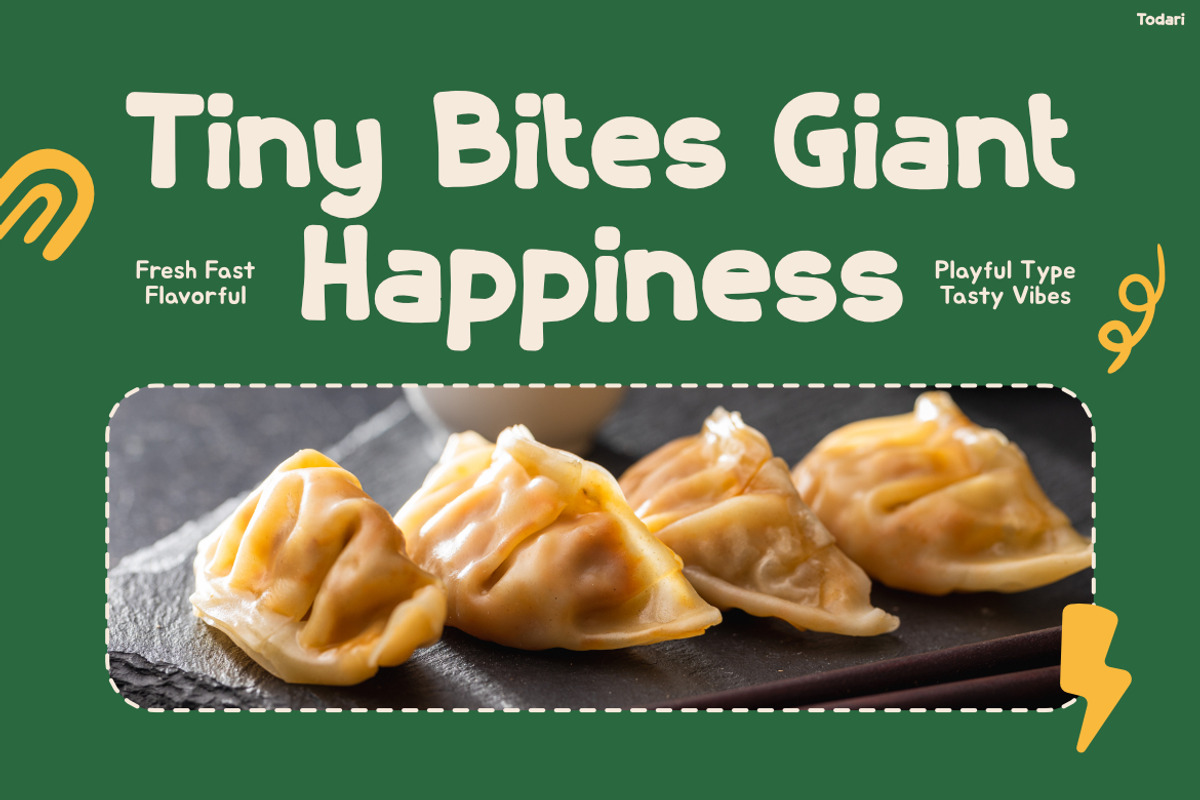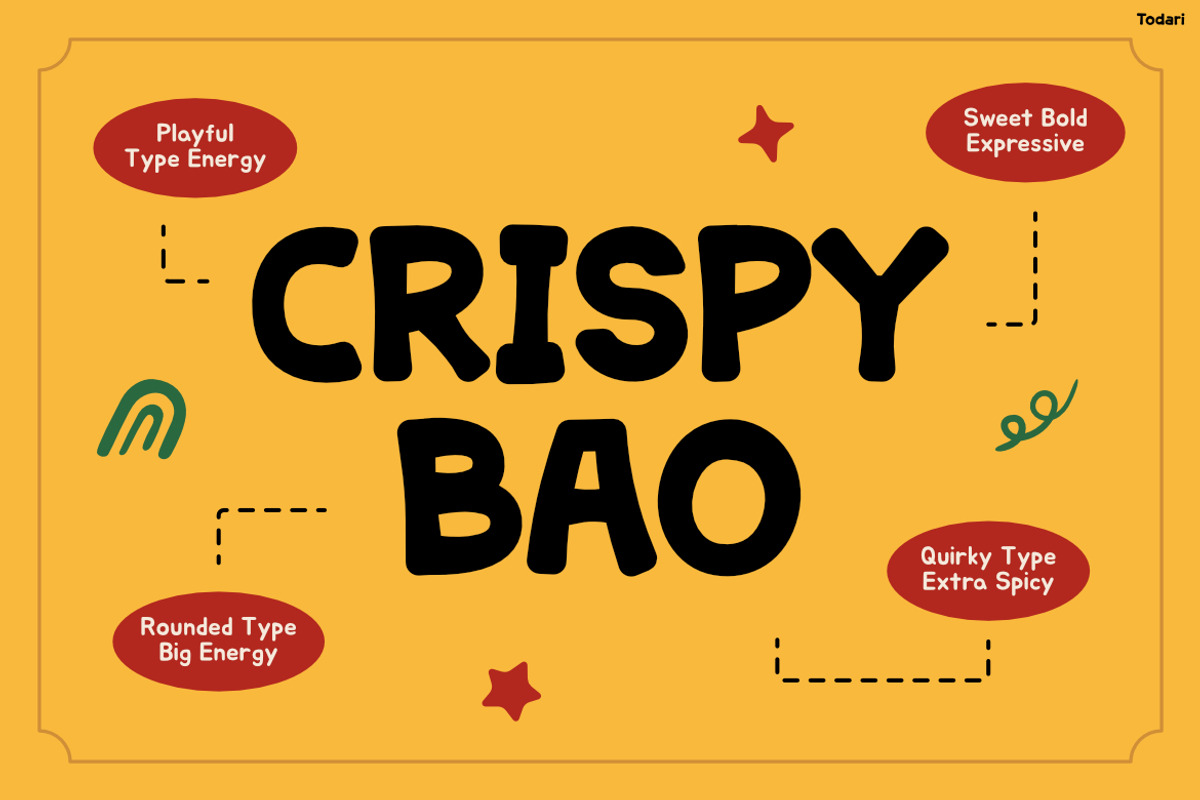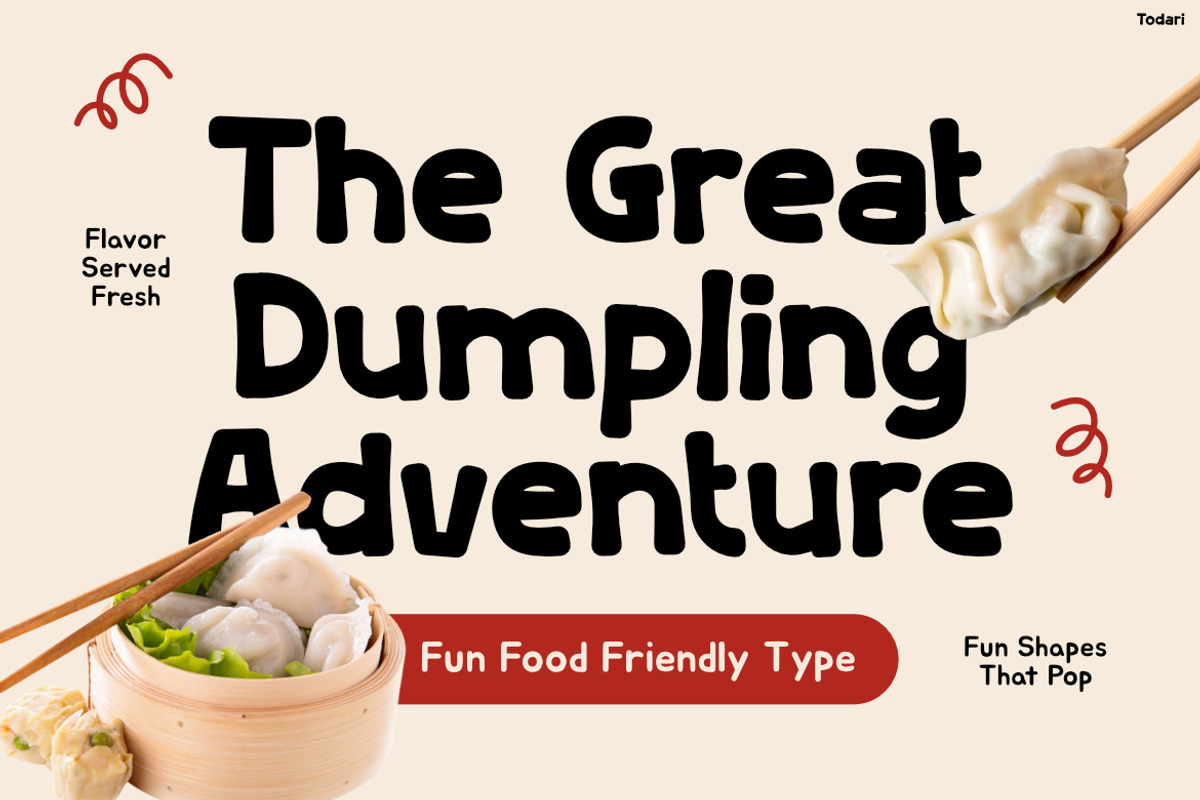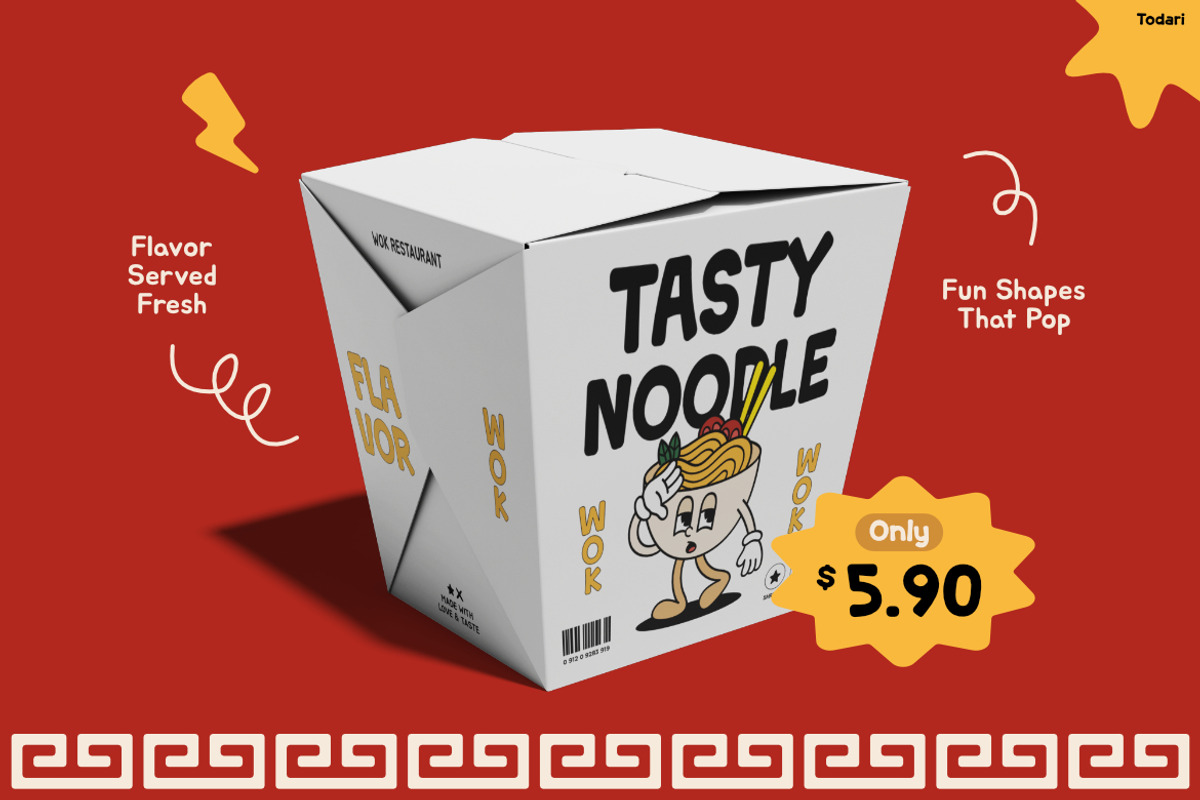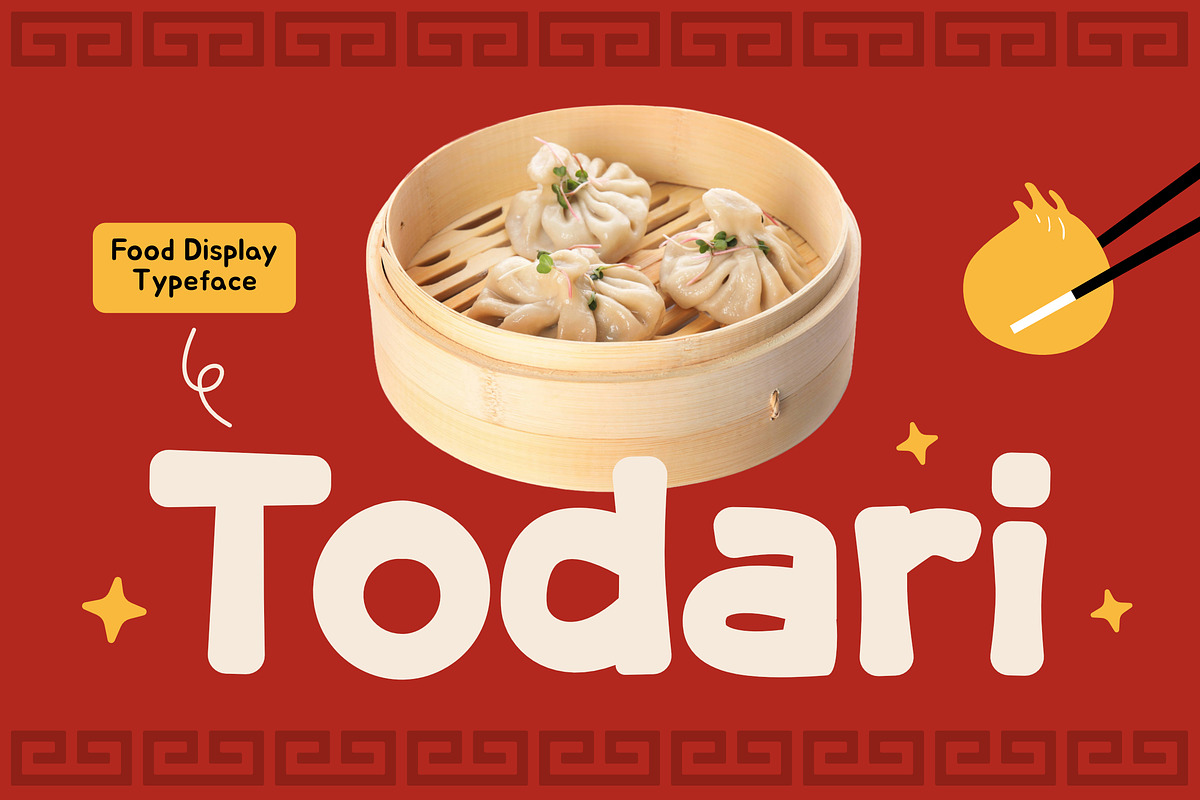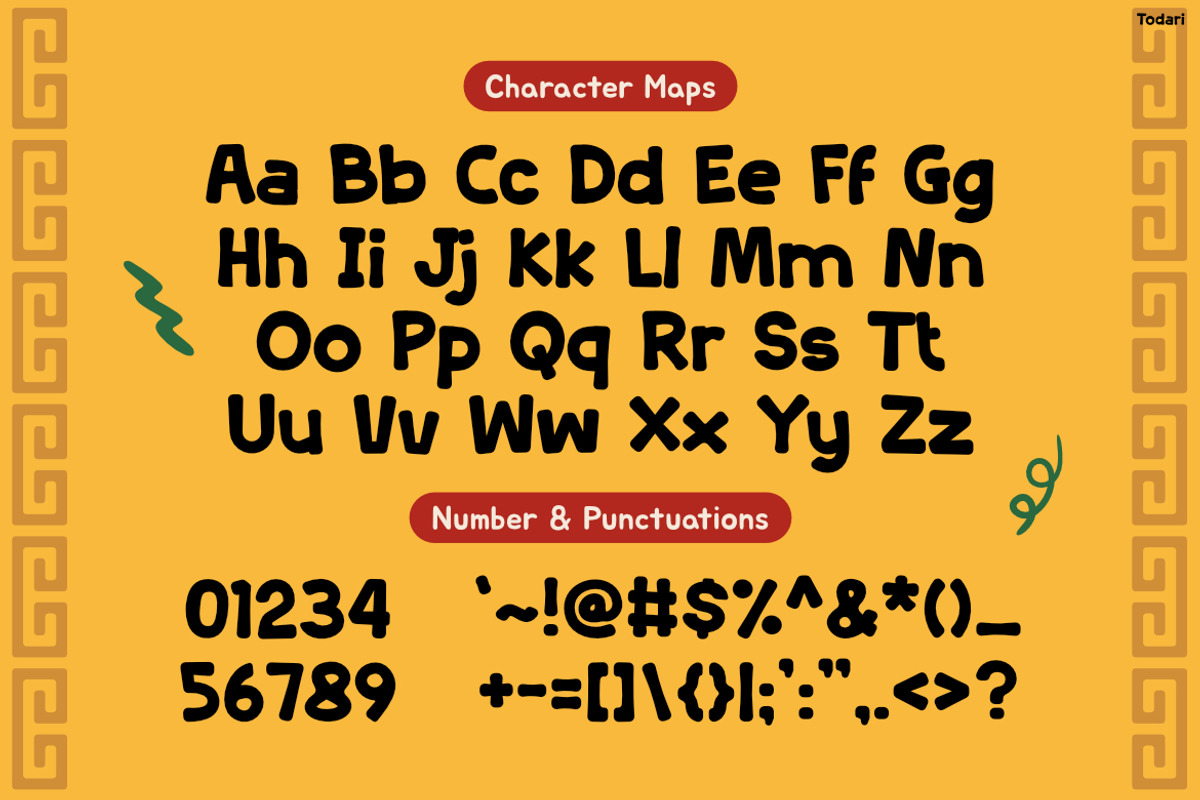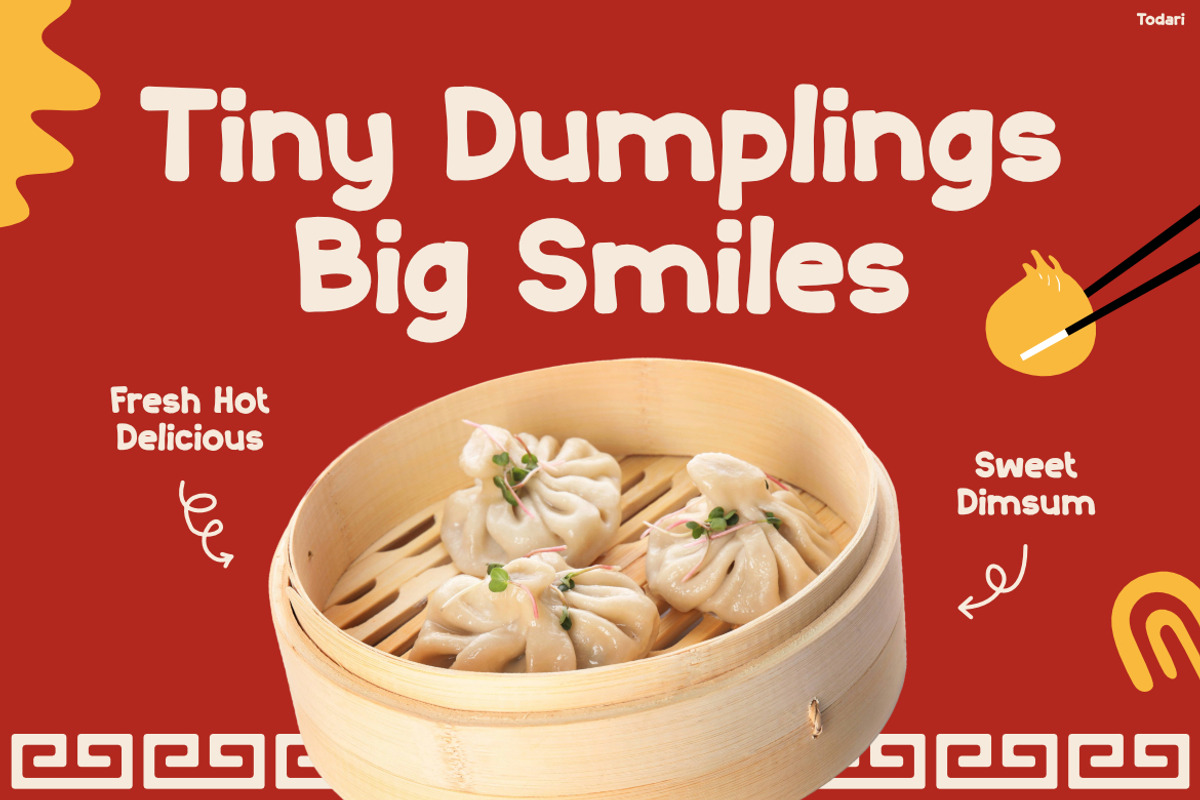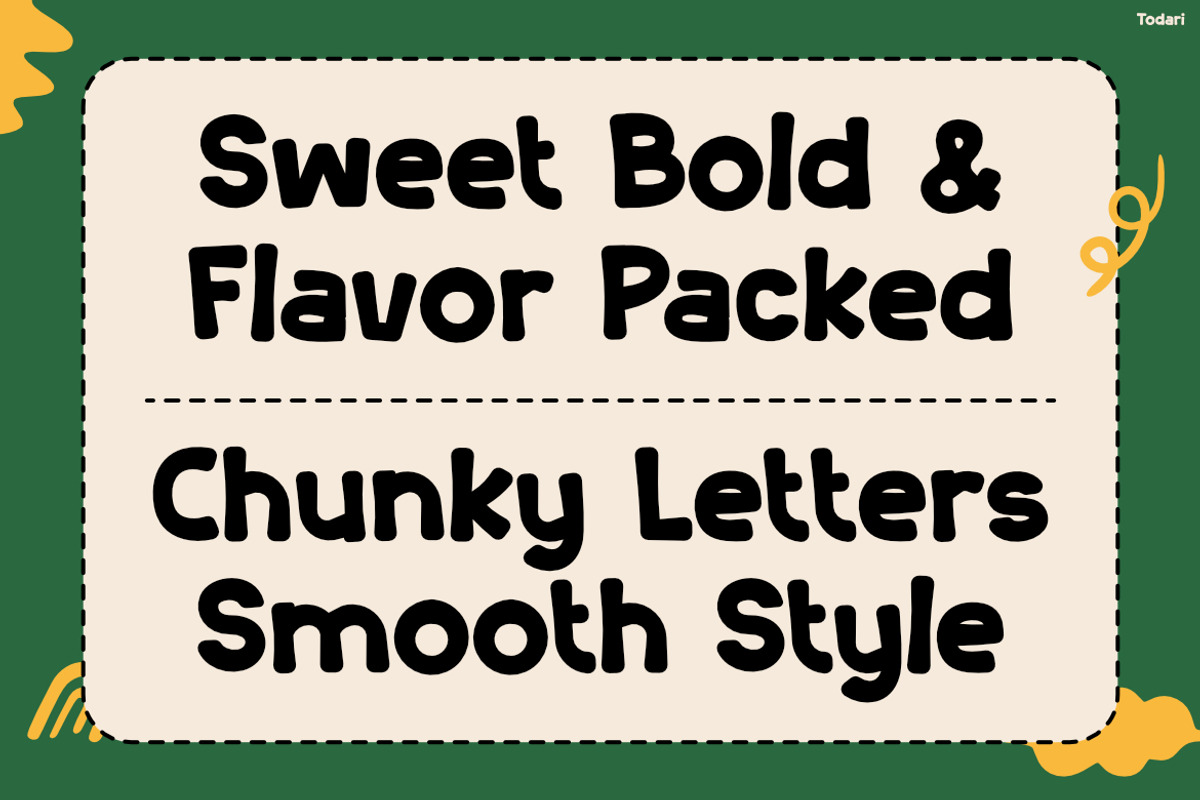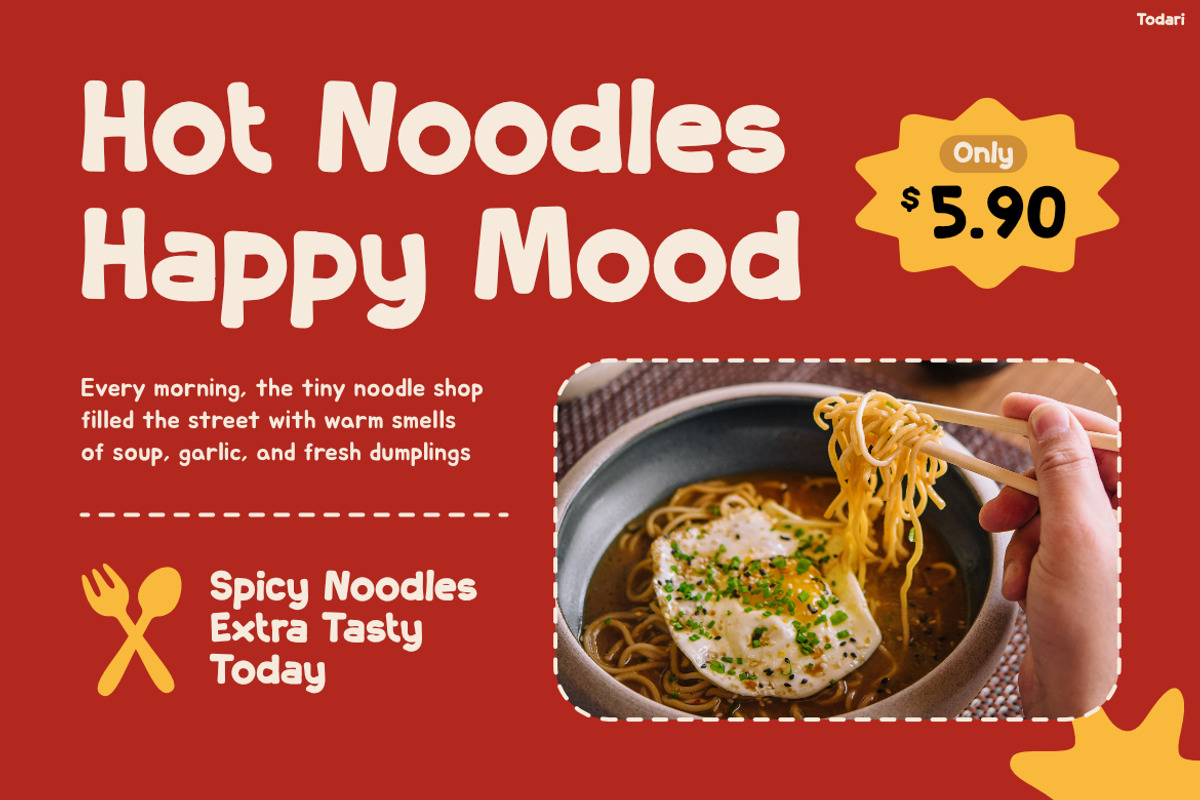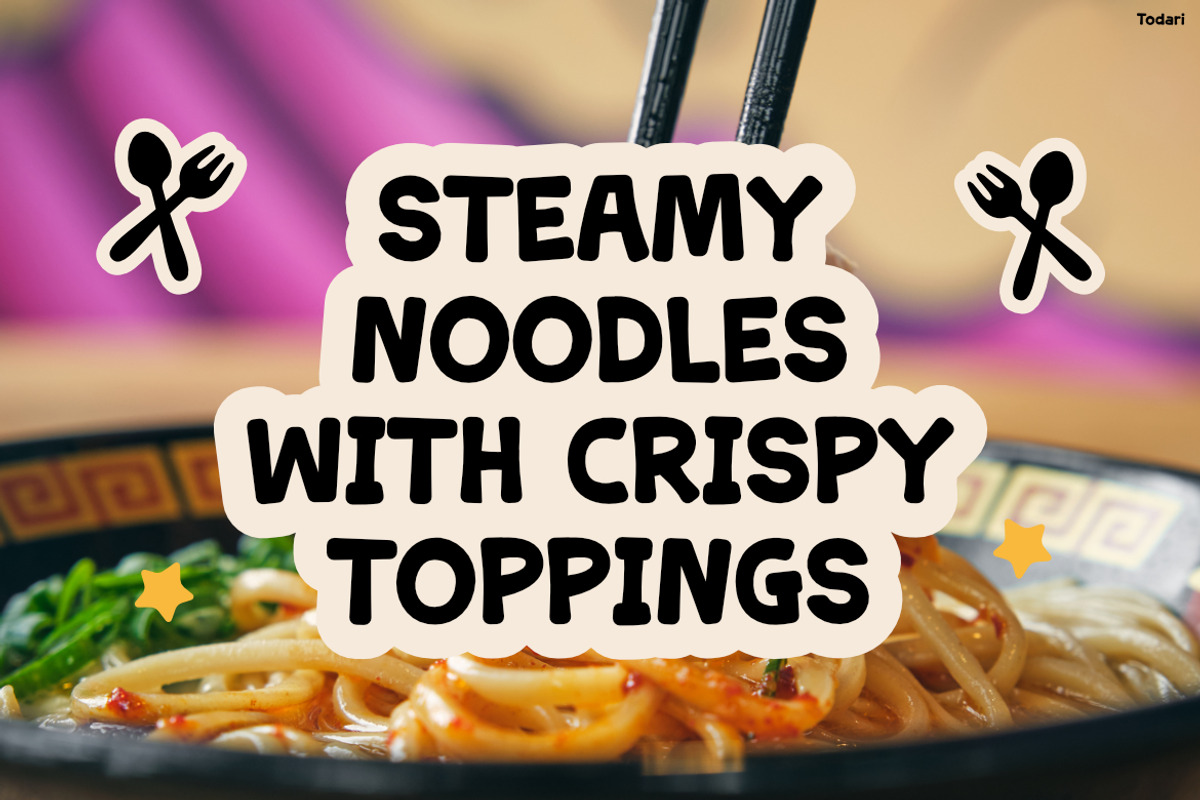
TODARI
Kids Font TODARI – Chunky Flavor with Happy Food Vibes
Kids Font TODARI brings chunky letterforms, playful curves, and cheerful food-inspired energy into every design. Moreover, the bold rounded shapes create a cute and friendly appearance that instantly grabs attention. Inspired by noodle shops, dumpling packaging, Asian street food, and colorful restaurant promotions, this font delivers a fun handmade aesthetic that feels both modern and expressive. In addition, the thick structure keeps every word highly readable while still looking playful and energetic. As a result, posters, menus, logos, packaging, and social media graphics feel more lively and memorable. Furthermore, the bold typography style helps headlines stand out clearly across both print and digital projects. At the same time, the soft character details create a warm and welcoming mood that audiences instantly enjoy. Because of its fun personality, Kids Font TODARI easily makes creative branding look more unique, tasty, and visually exciting.